In Parts 1 and 2, we discussed how variable fonts work, along with their advantages and limitations. In this third part, we’ll look at which programs and web environments support variable fonts, and how to use them in practice.
How to Use Variable Fonts
Variable fonts were first introduced in 2016. Since it has not yet been a full decade, many programs still do not support them. Most notably, Adobe Premiere Pro, After Effects, and XD do not offer native support. Microsoft Office applications also do not officially support variable fonts. Although a variable font file contains a wide range of weights—allowing you to select preset instances—you cannot access the core benefit of variable fonts: freely adjusting values between those weights. In practical terms, this means variable fonts cannot be fully utilized in these environments.
To take full advantage of variable fonts, it is important to know which programs actually support them. In Part 2, we introduced “Variable Fonts (Link),” where you can find a list of supported operating systems and programs. Below is a simplified summary chart of major applications, intended to help you choose the right environment for working with variable fonts.
Using a variable font within a program is not difficult. As with any other font, you simply select the font and adjust a few settings. In Adobe Illustrator and InDesign, selecting a variable font in the Type panel reveals a variable-font settings icon next to the style list. Clicking this icon displays sliders for each axis, which you can adjust freely.
Photoshop works slightly differently. After selecting a variable font in the Character panel, select the text layer and open the Properties panel, where you will find the variable-font controls. In Figma, selecting a text layer and clicking the meatball button (⋯) in the Type panel reveals a tab with sliders for each axis.
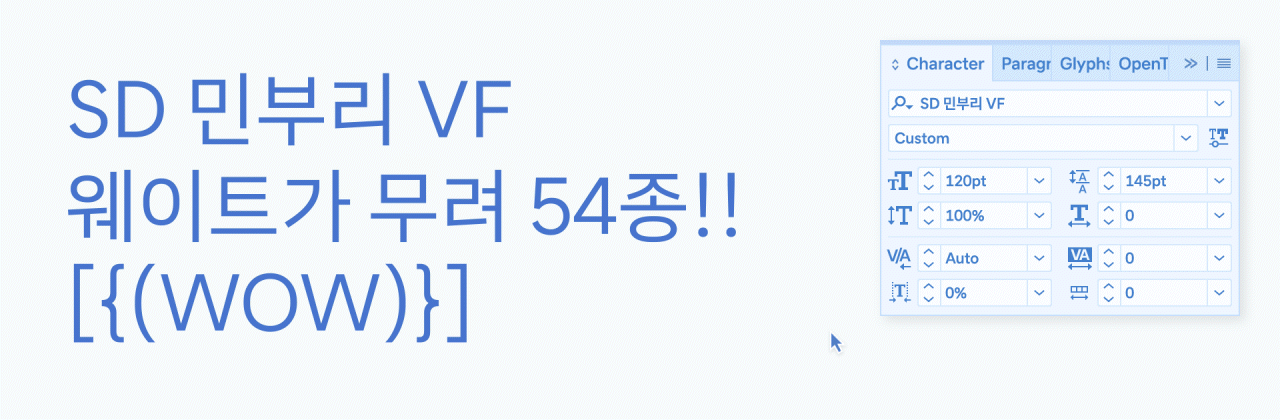
Variable fonts can also be used in Adobe Premiere Pro, After Effects, and Cinema 4D through third-party plugins and scripts. The usage is similar to the methods described above. If you want to use variable fonts across more applications, we recommend the following plugins:
How Variable Fonts Are Used on the Web
As shown in the examples above, variable fonts can add vitality and energy to the web. With slightly more effort than static fonts, they can create strong visual impact. Below are three simple use cases.
1. Hover-based style changes
With static fonts, buttons typically rely on bold styles or underlines to indicate interaction. Variable fonts allow for smoother and more expressive transitions, guiding user behavior through subtle animation.
Axis-value animation on mouse hover
2. Style changes based on pointer position
This approach can be used on landing pages or key messages to create responsive, dynamic typography. Beyond mouse movement, font axes can also be linked to microphone input or camera motion.
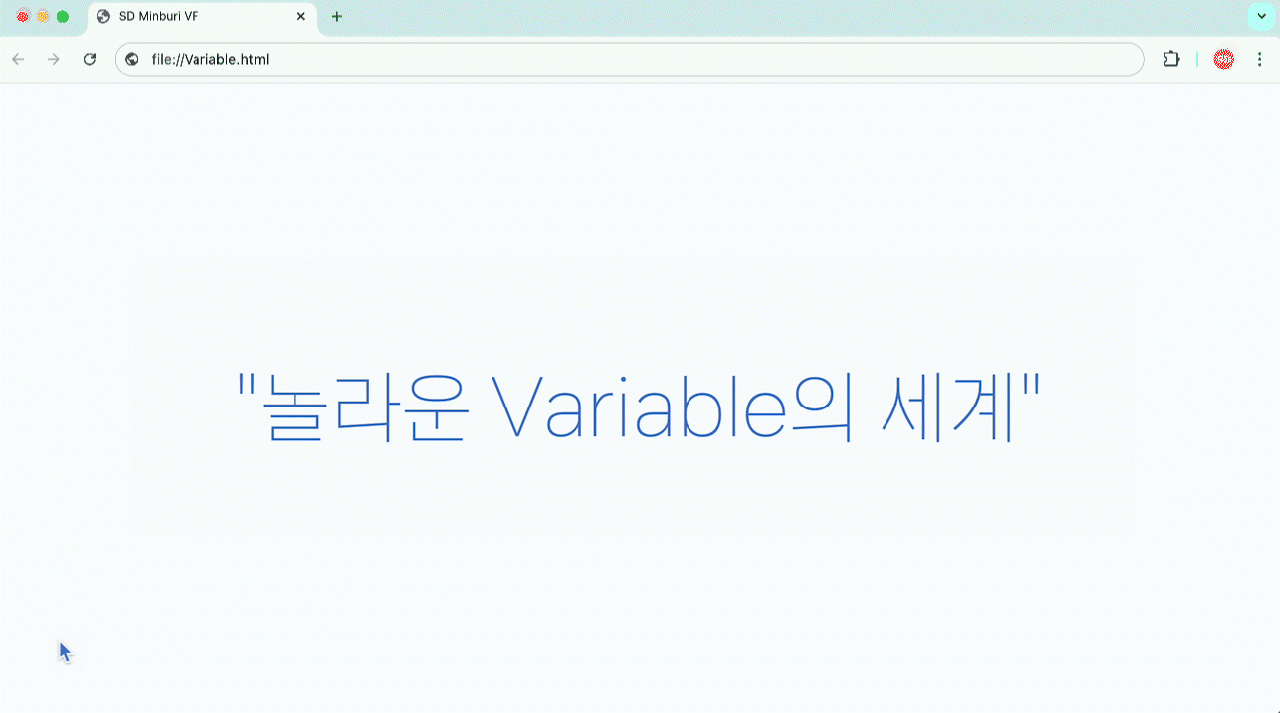
Animation where axis values change based on mouse position
3. User-controlled axis sliders
This approach can be used on landing pages or key messages to create responsive, dynamic typography. Beyond mouse movement, font axes can also be linked to microphone input or camera motion.
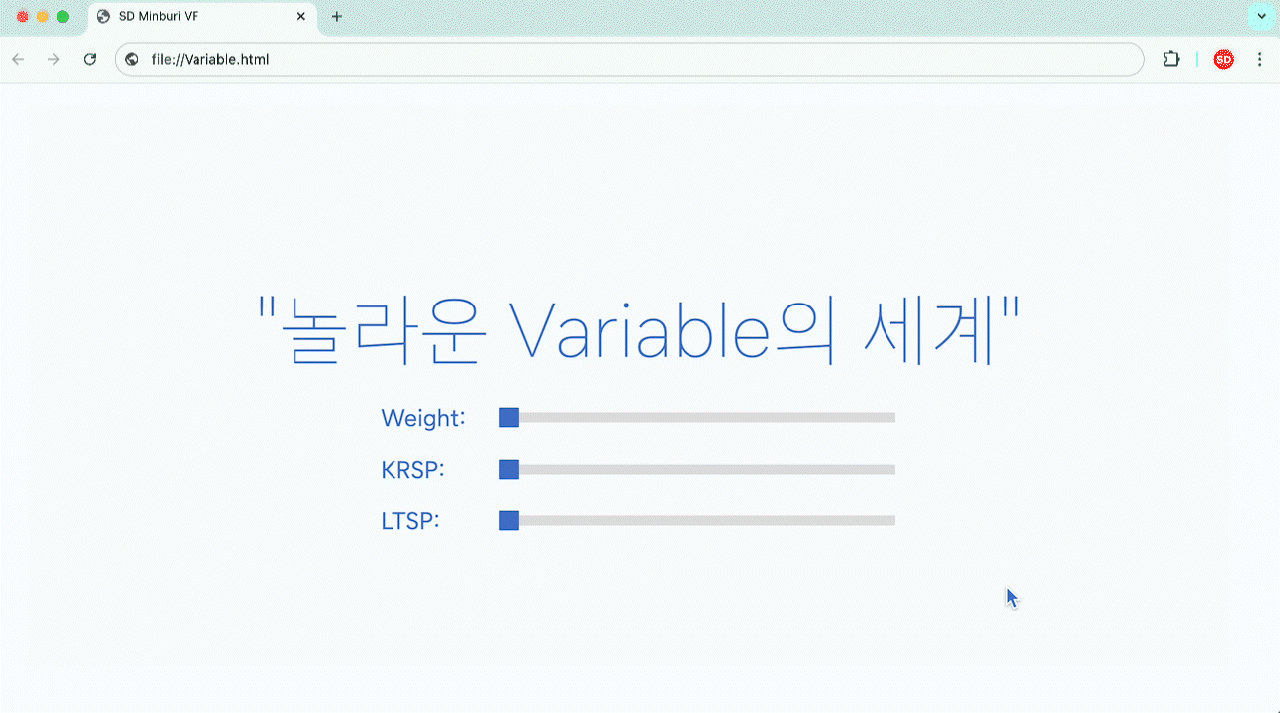
Adjusting axis values using sliders
Web Design Examples
Variable fonts are especially effective in responsive web design. The Glyphs homepage (Link) uses ABC Dinamo’s Arizona font throughout the site, featuring smooth weight transitions on hover. The Symphosizer site (Link), which showcases the custom font SF Symphony, transforms the font in real time using human voice input or other sound sources, and also provides a mouse-based mode for quiet environments.
Glyphs Homepage
GT Flexa Homepage
Symphosizer
There are also websites where you can test variable fonts on the web. Font Gauntlet (Link), provided by ABC Dinamo, allows users to try out their own variable font files as well as variable fonts produced by ABC Dinamo. AXIS PRAXIS (Link), created by Laurence Penney, enables testing multiple variable fonts simultaneously across a wider range of scenarios. On Variable Fonts (Link), you can explore 377 variable fonts, including color fonts and dingbat fonts. Samsa (Link) allows you to intuitively see how individual glyphs in a variable font change across different axes.
Variable Fonts That Capture More Attention
Although there may be slight differences depending on the font, a single variable font file is generally comparable in size to three to five static font files. Therefore, if you only need one or two font styles, using static fonts may actually be more efficient. However, variable fonts enable a wide range of styles and animations, allowing for more expressive designs. They can also draw users into the design by offering interactive experiences. If you are looking to create designs that capture attention and encourage longer engagement, why not consider using variable fonts?